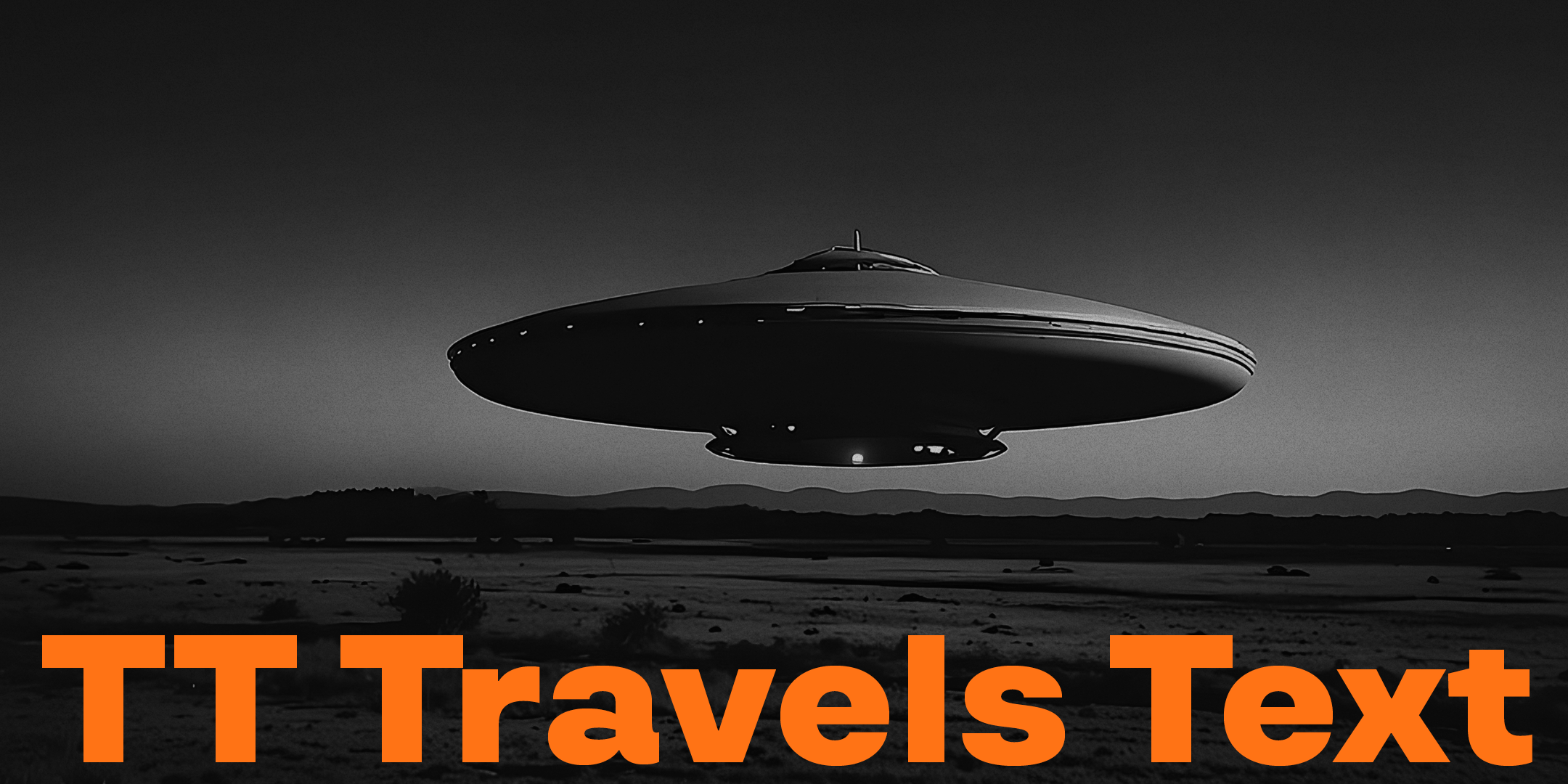
TT Travels Text Font is ideal for travel agency branding, tourism guidebooks, adventure travel materials, destination marketing campaigns, travel blog layouts, expedition documentation, journey planning guides, wanderlust-inspired content, global exploration materials, and authentic travel experiences.
What makes TT Travels Text Font exciting is its adventurous spirit and wanderlust elegance that captures the essence of global exploration with authentic travel charm and journey-inspired sophistication. This captivating typeface embodies the spirit of world travel with its flowing character forms and adventure-inspired proportions that evoke passport stamps from distant countries, handwritten travel journals filled with memories, and the kind of authentic wanderlust that drives people to explore every corner of the world. The font's travel character creates an immediate sense of adventure and the kind of global perspective that comes from experiencing diverse cultures.
TT Travels Text Font family includes regular weight with adventurously crafted character designs featuring travel-inspired curves and global proportions. The typeface maintains exceptional readability while showcasing its distinctive wanderlust personality through thoughtfully designed letterforms that seem to carry the stories of countless journeys and the wisdom gained from crossing cultural boundaries.
Travel professionals consistently select TT Travels Text Font Free Download for projects requiring authentic travel appeal and adventure credibility. This remarkable typeface brings the excitement of global exploration to brand communications, combining wanderlust aesthetics with cultural authenticity to create memorable travel experiences. The adventurously designed characters ensure inspiring positioning across all applications, making it essential for travel companies, tourism boards, and any organization seeking to communicate the transformative power of travel and the cultural enrichment that comes from embracing the spirit of global exploration through TT Travels Text Font Free Download.